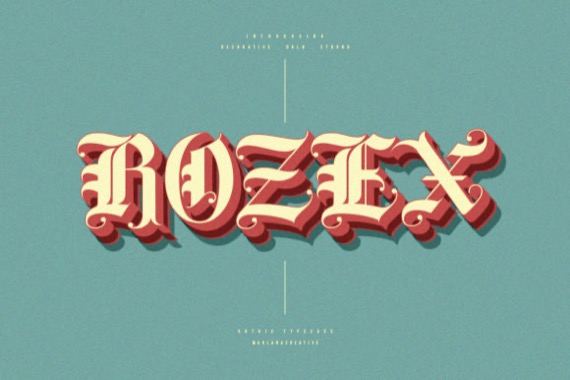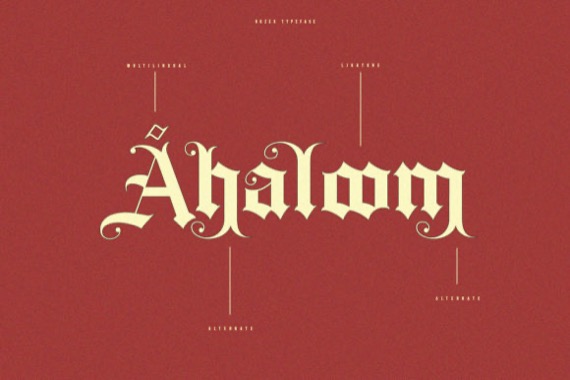
Rozex is a classy and modern blackletter font that was created and shared by Maulana Creative, it simplifies elegance into one truly outstanding blackletter font. It will elevate a wide range of design projects to the highest level, be it branding, headings, wedding designs, invitations, signatures, logos, labels, and much more!
Rozex Blackletter Font